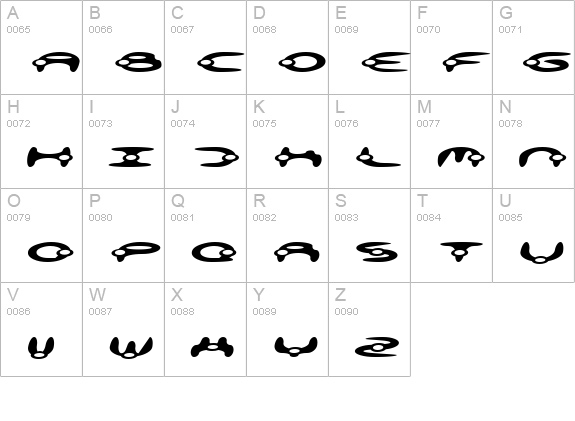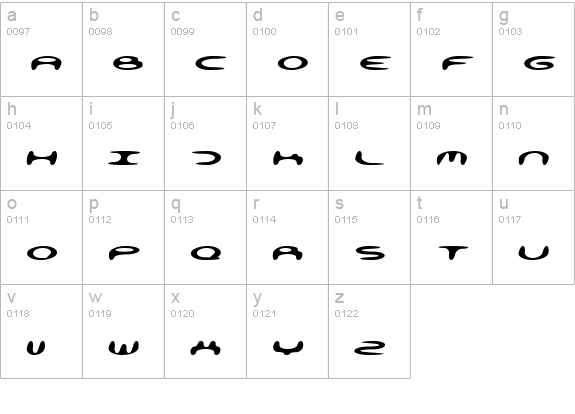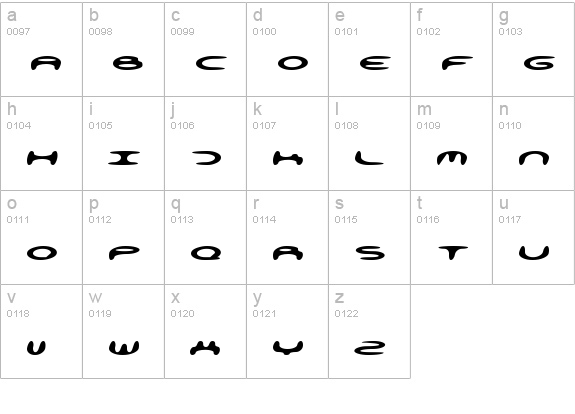
alienation Font Details
Alienation font is a captivating and otherworldly typeface that exudes a sense of detachment and mystery. Its bold and angular letterforms create a striking visual impact, perfect for conveying a sense of alienation and estrangement. The unique design of this font sets it apart from traditional fonts, making it ideal for projects that require a touch of the unknown. The Alienation font is freely available for download at FontsMarket.com, allowing designers and creatives to easily access this innovative typeface for their projects. Whether you're working on a science fiction-themed design, a mysterious poster, or a bold branding project, Alienation font offers a versatile and eye-catching option to bring your vision to life. Embrace the unconventional and explore the realms of the unknown with Alienation font.